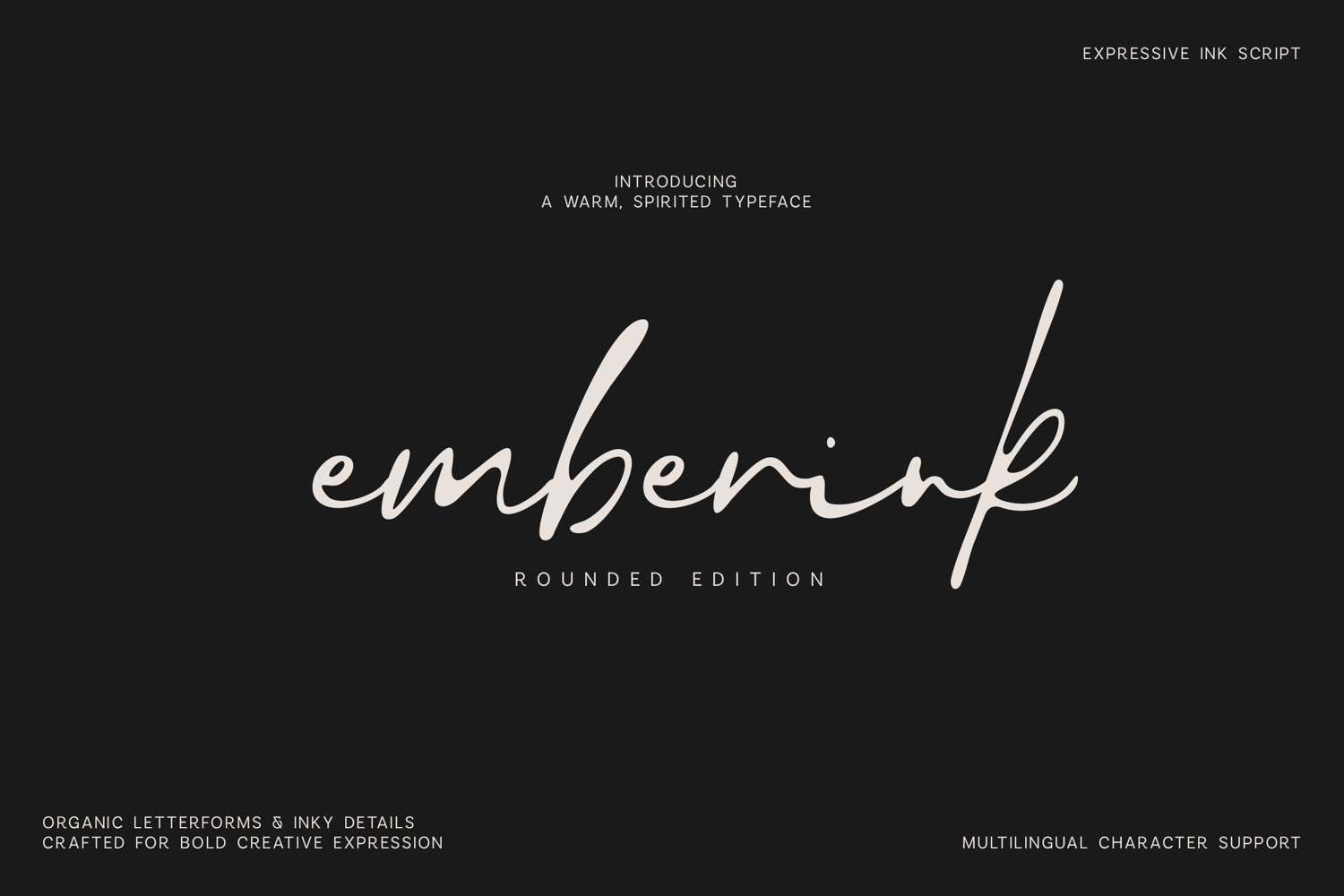
Emberink Rounded Handwritten Script Font
Emberink Rounded is an expressive handwritten script font with smooth edges, organic letterforms, and a warm, contemporary personality. Its rounded ink strokes soften the spontaneous energy of natural handwriting, creating a style that feels friendly, artistic, and confidently modern.
Designed for memorable display typography, Emberink Rounded works beautifully for signature logos, branding, packaging, posters, editorial titles, social media graphics, invitations, quotes, and lifestyle campaigns. Its elongated strokes and flowing connections bring movement and personality to every composition while the rounded finish keeps the overall look polished and approachable.
Perfect For
- Signature logos and branding
- Product packaging and labels
- Posters and expressive headlines
- Editorial titles and magazine layouts
- Invitations and event stationery
- Social media graphics and promotions
- Quotes, book covers, and album artwork
- Fashion, beauty, and lifestyle branding
Font Features
- Rounded handwritten script style
- Smooth, organic ink-inspired letterforms
- Uppercase and lowercase characters
- Numbers, punctuation, and symbols
- Extensive multilingual character support
- Expressive long strokes and natural movement
- Suitable for print and digital projects
Give your typography a smooth handwritten voice with the warmth, movement, and distinctive personality of Emberink Rounded.